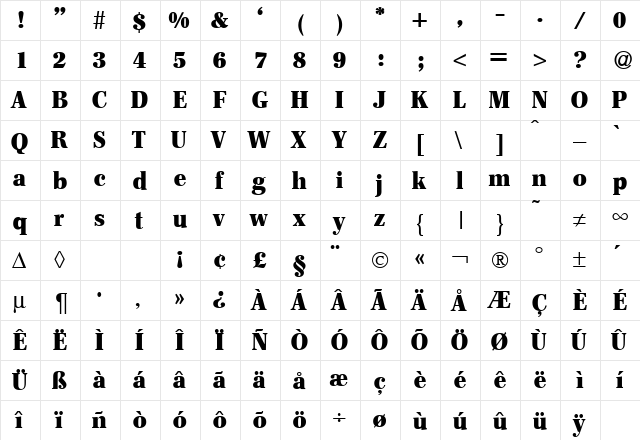
FranklinSerifHeavy Regular
Design Context for FranklinSerifHeavy Typeface
FranklinSerifHeavy carries the refined structure of traditional serif typography, with bracketed terminals and considered proportions that communicate credibility and craft.